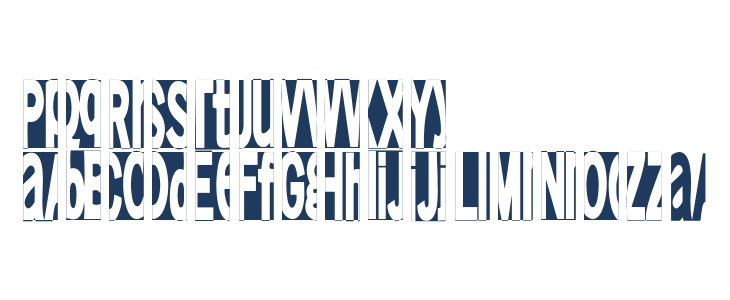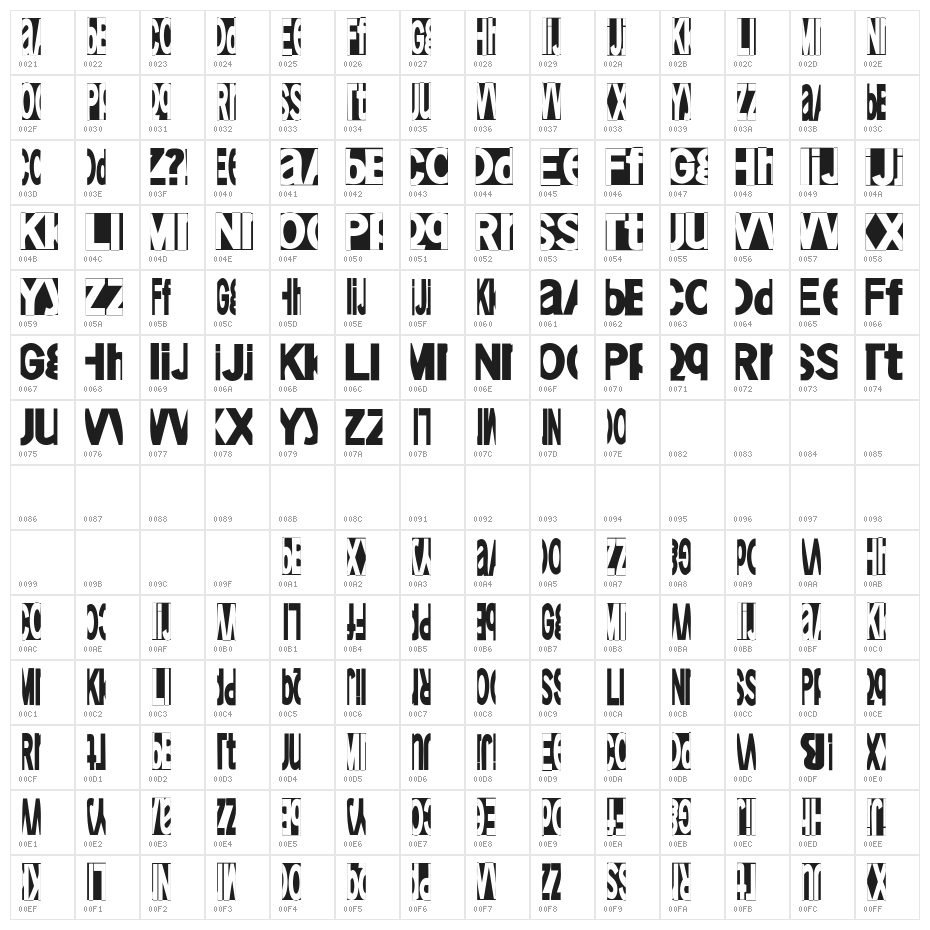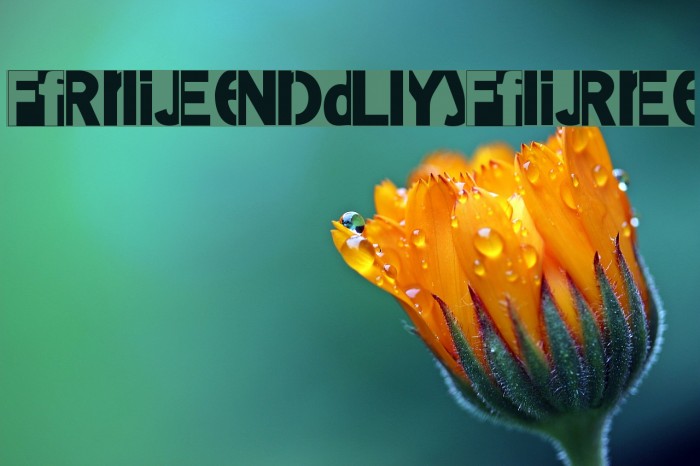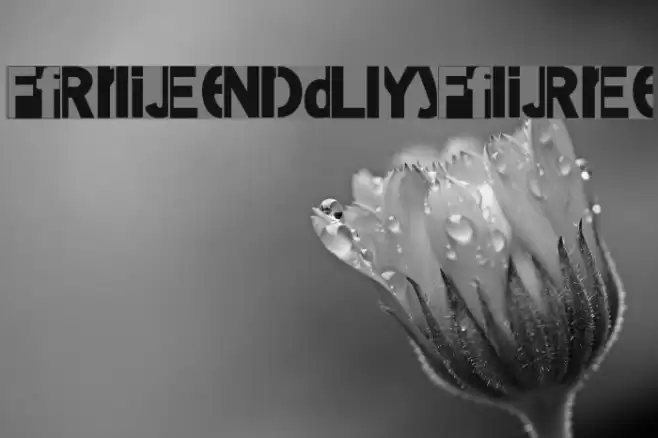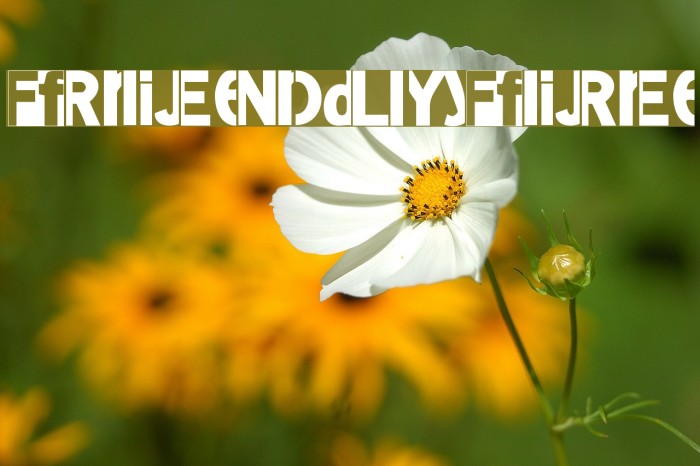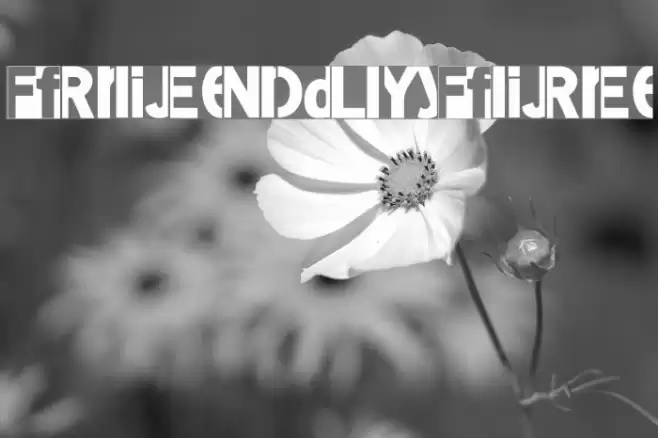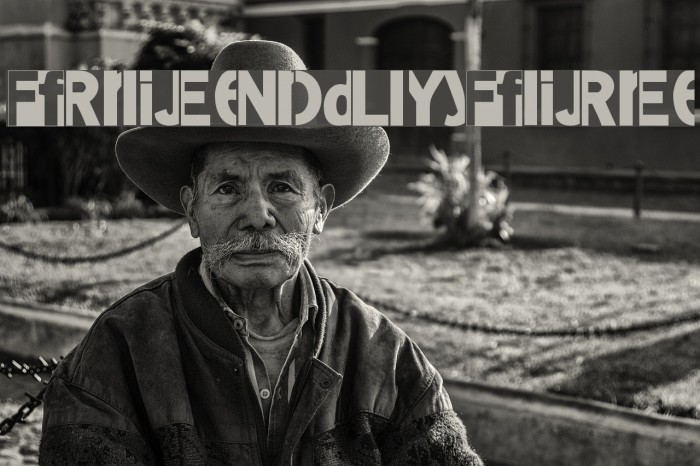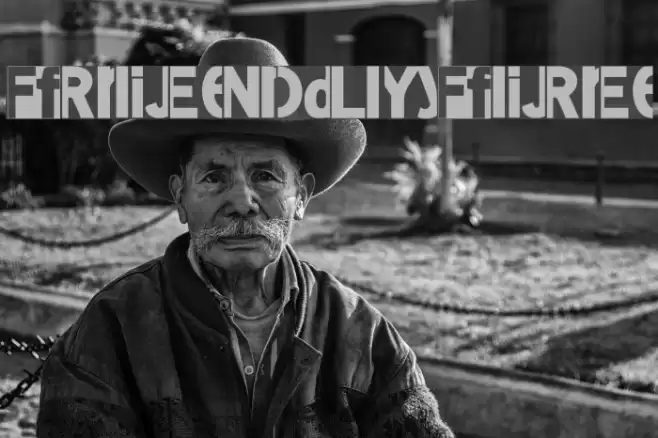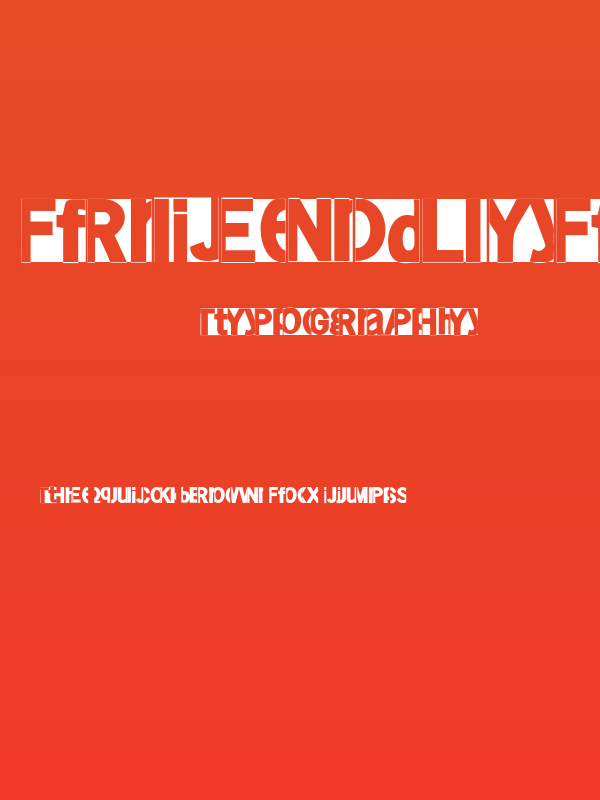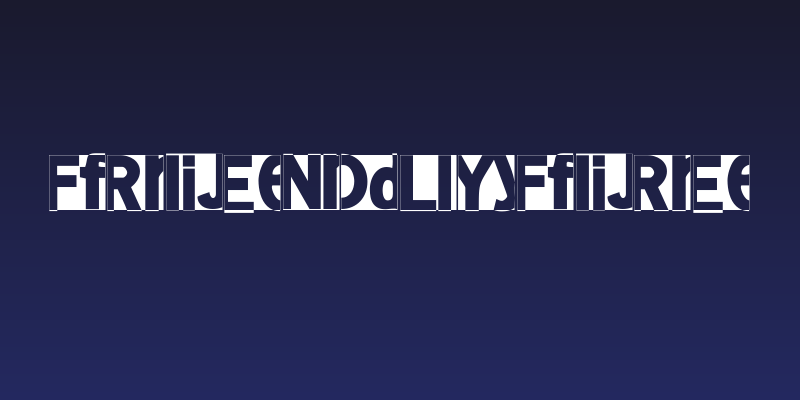
FriendlyFire Font
FriendlyFire Description
This font features a bold and striking design with a high contrast between thick and thin strokes. The characters are uniquely styled with a playful and artistic flair, making them stand out prominently. The uppercase and lowercase letters maintain a consistent design theme, with some characters exhibiting a slightly condensed form. The numbers and special characters are designed to match the overall aesthetic, ensuring a cohesive look across all glyphs. This font's distinctive appearance makes it ideal for creative and eye-catching designs.